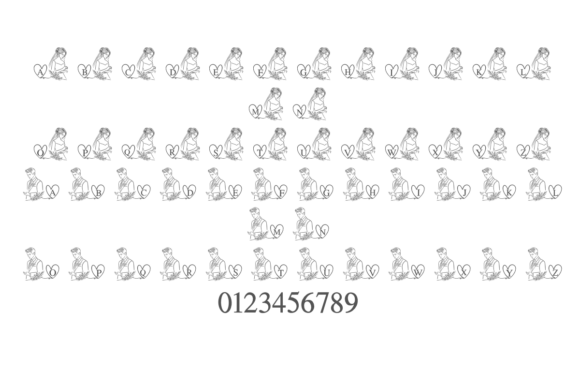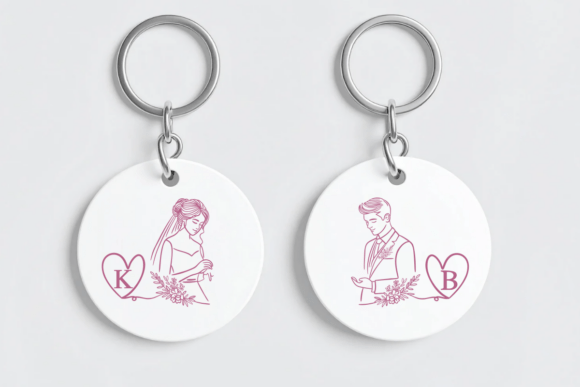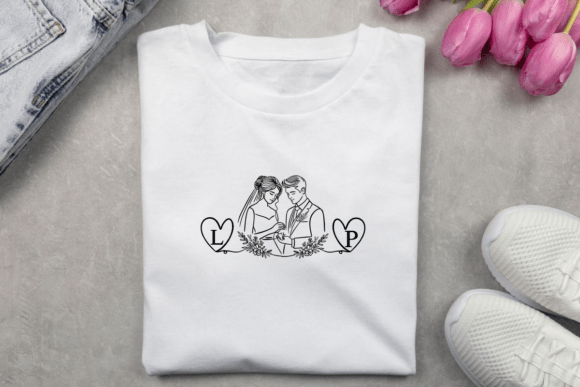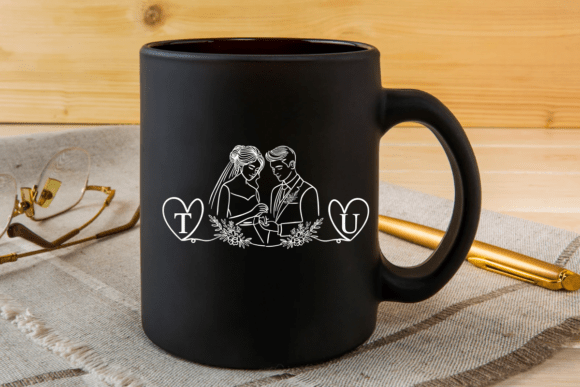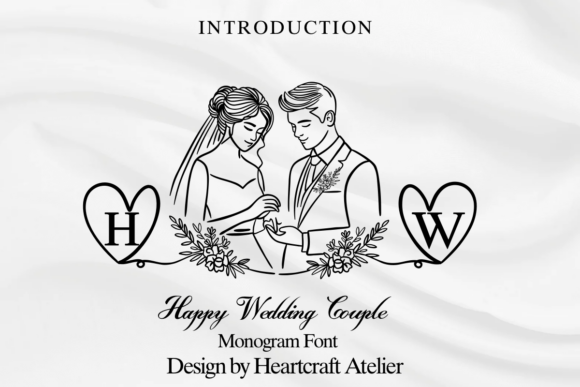
Introducing the Happy Wedding Couple Font: A Decorative Delight for Designers and Crafters
Are you a designer or crafter looking for a unique and playful font to add a touch of personality to your projects? Look no further than the Happy Wedding Couple Font! This decorative font is perfect for a variety of creative endeavors, from taking notes and writing diaries to making greeting cards and designing social media posts.
What is the Happy Wedding Couple Font?
The Happy Wedding Couple Font is a decorative font designed to bring a sense of joy and celebration to your designs. With its playful and whimsical style, this font is perfect for projects that require a touch of romance and happiness. Whether you’re creating wedding invitations, birthday cards, or simply want to add a personal touch to your notes and journals, this font is sure to delight.
Uses for the Happy Wedding Couple Font
The Happy Wedding Couple Font is incredibly versatile and can be used for a wide range of projects, including:
- Taking notes and writing diaries: Add a personal touch to your journaling with this fun and playful font.
- Creating greeting cards: Make your cards stand out with a unique and eye-catching font.
- Designing banners and signs: Use the Happy Wedding Couple Font to create attention-grabbing banners and signs for parties, events, and more.
- Making mugs and water bottles: Add a touch of personality to your drinkware with this fun and decorative font.
- Creating social media posts: Stand out on social media with eye-catching graphics and posts featuring the Happy Wedding Couple Font.
- Designing stationery and paper goods: Use this font to create custom stationery, notebooks, and other paper goods.
- Customizing shirts and apparel: Add a playful touch to your t-shirts, hoodies, and other apparel with this decorative font.
Why Choose the Happy Wedding Couple Font?
So why choose the Happy Wedding Couple Font for your next project? Here are just a few reasons:
- Unique and eye-catching: This font is sure to grab attention and add a touch of personality to your designs.
- Versatile: Use the Happy Wedding Couple Font for a wide range of projects, from notes and journals to social media posts and apparel.
- High-quality: The Happy Wedding Couple Font is a high-quality font designed to look great in a variety of sizes and applications.
Tips for Using the Happy Wedding Couple Font
Here are a few tips for getting the most out of the Happy Wedding Couple Font:
- Experiment with different sizes: Try out the font in different sizes to see how it looks in various applications.
- Pair with other fonts: Combine the Happy Wedding Couple Font with other fonts to create unique and eye-catching designs.
- Use in combination with images: Add an extra layer of interest to your designs by combining the font with images or graphics.
- Make it your own: Don’t be afraid to get creative and make the font your own by adding your own personal touch.
The Happy Wedding Couple Font is a fun and decorative font that’s perfect for designers and crafters looking to add a touch of personality to their projects. With its playful and whimsical style, this font is sure to delight and inspire. Whether you’re creating notes, greeting cards, social media posts, or apparel, the Happy Wedding Couple Font is a great choice. So why wait? Download the Happy Wedding Couple Font today and start creating!